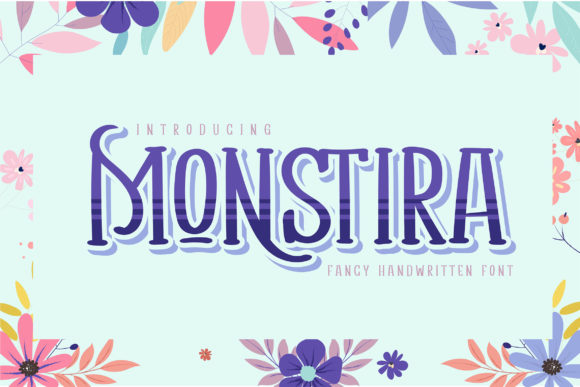
Embrace the allure of Monstira Font, a display font that captivates with its chic, fashionable flair. Inspired by the world of fashion and editorial design, Monstira is the epitome of elegance and sophistication. With its graceful curves and alluring swashes, this font possesses an undeniable charm that will elevate your designs to new heights of beauty.
Immerse yourself in the world of Monstira, where creativity knows no bounds. This remarkable font features PUA encoding, granting you effortless access to a treasure trove of glyphs and swashes. Unleash your imagination and let your designs flourish with Monstira's boundless possibilities.
Picture this: a fashion magazine cover adorned with Monstira Font, its bold and stylish letters commanding attention from every angle. Or, envision an editorial spread where Monstira's delicate curves dance across the page, captivating readers with its timeless beauty. With Monstira, your designs will radiate an aura of luxury and sophistication that will leave a lasting impression.
Monstira Font is not just a collection of letters; it's a work of art that will transform your designs into masterpieces. Whether you're a seasoned designer or just starting, Monstira will ignite your creativity and help you create designs that speak volumes.
So, why settle for ordinary fonts when you can embrace the extraordinary? Dive into the world of Monstira Font today and unlock a new realm of design possibilities. Let Monstira's alluring curves and captivating swashes captivate your audience and leave them in awe of your creations. Monstira Font awaits you, ready to elevate your designs to the pinnacle of beauty and sophistication.